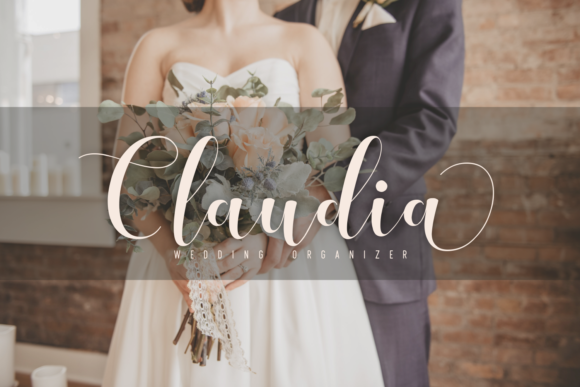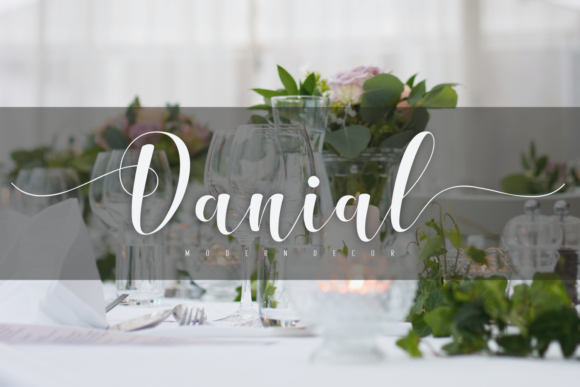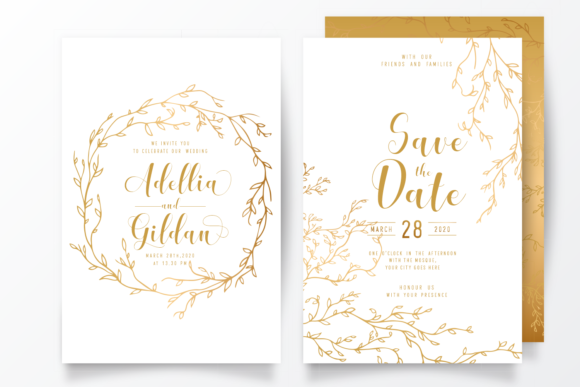
Introducing Gladie Font: Elevate Your Designs with Elegance and Friendliness
In the world of typography, a font can make or break a design. For designers and crafters looking to add a touch of magic to their creations, Gladie Font is an exceptional choice. This beautifully crafted handwritten font combines classic elegance with a friendly feel, making it perfect for a wide range of design projects. In this article, we’ll dive into the features of Gladie Font and explore how it can elevate your designs.
The Charm of Gladie Font
Gladie Font is a meticulously designed handwritten font that exudes a sense of elegance and sophistication. Its classic style is reminiscent of traditional calligraphy, yet it maintains a friendly and approachable feel. This unique blend makes Gladie Font versatile and suitable for various design applications, from wedding invitations and branding materials to digital content and craft projects.
PUA Encoding for Easy Access to Glyphs and Swashes
One of the standout features of Gladie Font is its PUA (Private Use Area) encoding. This means that users can easily access a wide range of glyphs and swashes, allowing for greater creativity and flexibility in design. With PUA encoding, you can unlock the full potential of Gladie Font and add unique touches to your projects.
Special Features for Unique Designs
Gladie Font offers a wealth of special features that can take your designs to the next level. Some of these features include:
- Alternate Glyphs: Gladie Font provides alternate glyphs that allow you to mix and match different letterforms, creating a truly unique look for your designs.
- Ligatures: The font also features ligatures, which enable you to connect letters and words in a beautiful, flowing manner.
- Swashes: With Gladie Font’s swashes, you can add decorative flourishes to your designs, giving them a touch of elegance and sophistication.
Why Choose Gladie Font?
So, why should you choose Gladie Font for your design projects? Here are just a few compelling reasons:
- Unique and Outstanding Designs: Gladie Font’s classic yet friendly style ensures that your designs stand out from the crowd.
- Ease of Use: The font’s PUA encoding and special features make it easy to use and customize.
- Versatility: Gladie Font is suitable for a wide range of design applications, from digital content to print materials.
Tips for Using Gladie Font
To get the most out of Gladie Font, here are a few tips:
- Experiment with Glyphs and Swashes: Don’t be afraid to try out different glyphs and swashes to add unique touches to your designs.
- Mix and Match: Combine Gladie Font with other fonts or design elements to create a truly unique look.
- Pay Attention to Kerning: Make sure to adjust the kerning to ensure that your text looks balanced and visually appealing.
Gladie Font is a magical handwritten font that offers a perfect blend of elegance and friendliness. With its PUA encoding, special features, and versatility, it’s an excellent choice for designers and crafters looking to elevate their designs. Whether you’re working on a wedding invitation, branding material, or digital content, Gladie Font is sure to make your projects stand out. So why wait? Give Gladie Font a try today and discover the magic of beautiful typography!